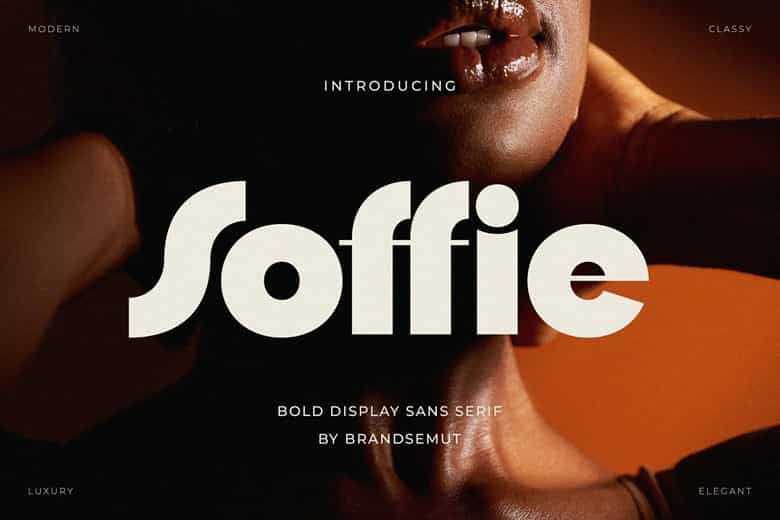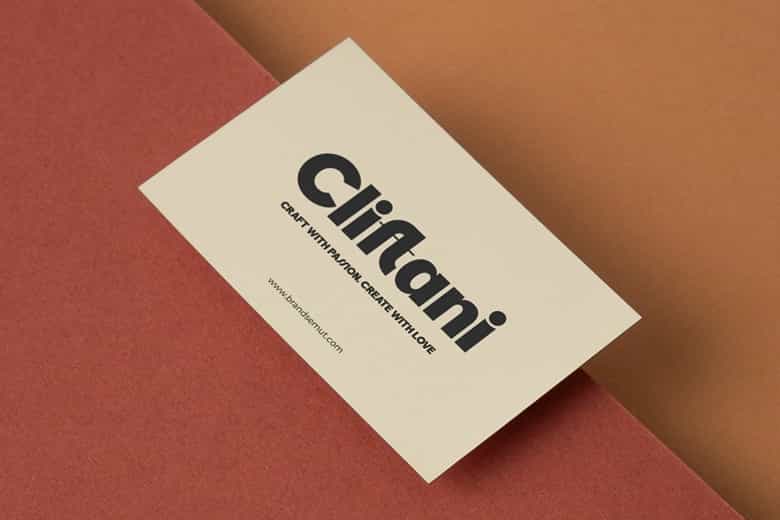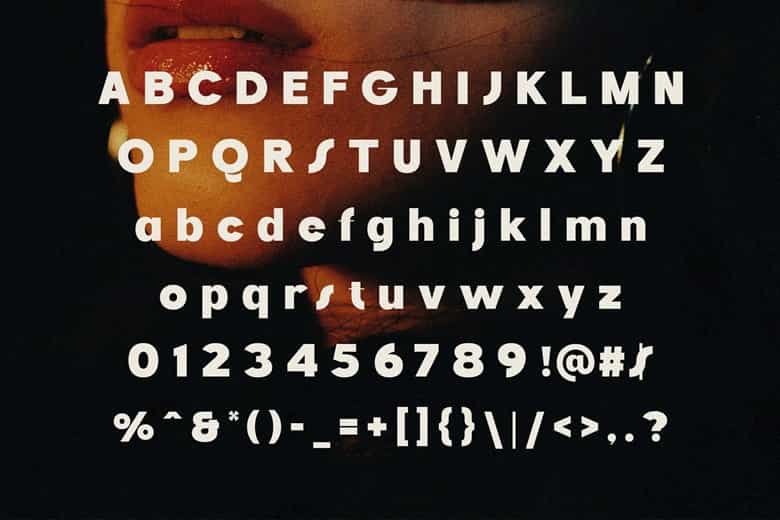
Soffie Font
Discover Soffie Font, part of the   Sans Serif Display  Uncategorized collection—a versatile and unique font perfect for adding a personal touch to your projects. Download it for free and enjoy crafting designs with style, from invitations to social media posts. This font is available exclusively for personal use, giving you the freedom to create without limits. Unlock your creativity with Soffie Font today!
Soffie is bold display sans serif font, best suited for headlines, logos and branding, magazines and newspaper, product designing and many other designs needed for invitations and greetings. Soffie has clean lines and curves that makes an additional finishing to any project by making it look like a classy project.